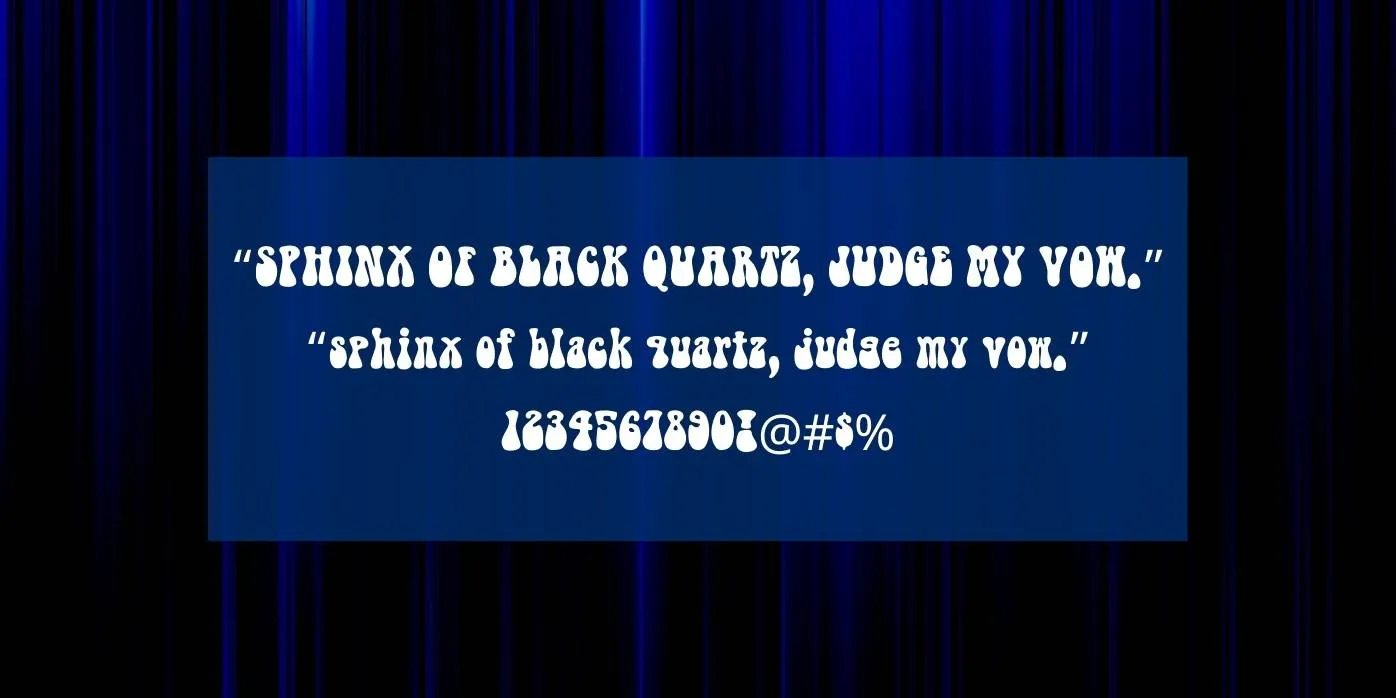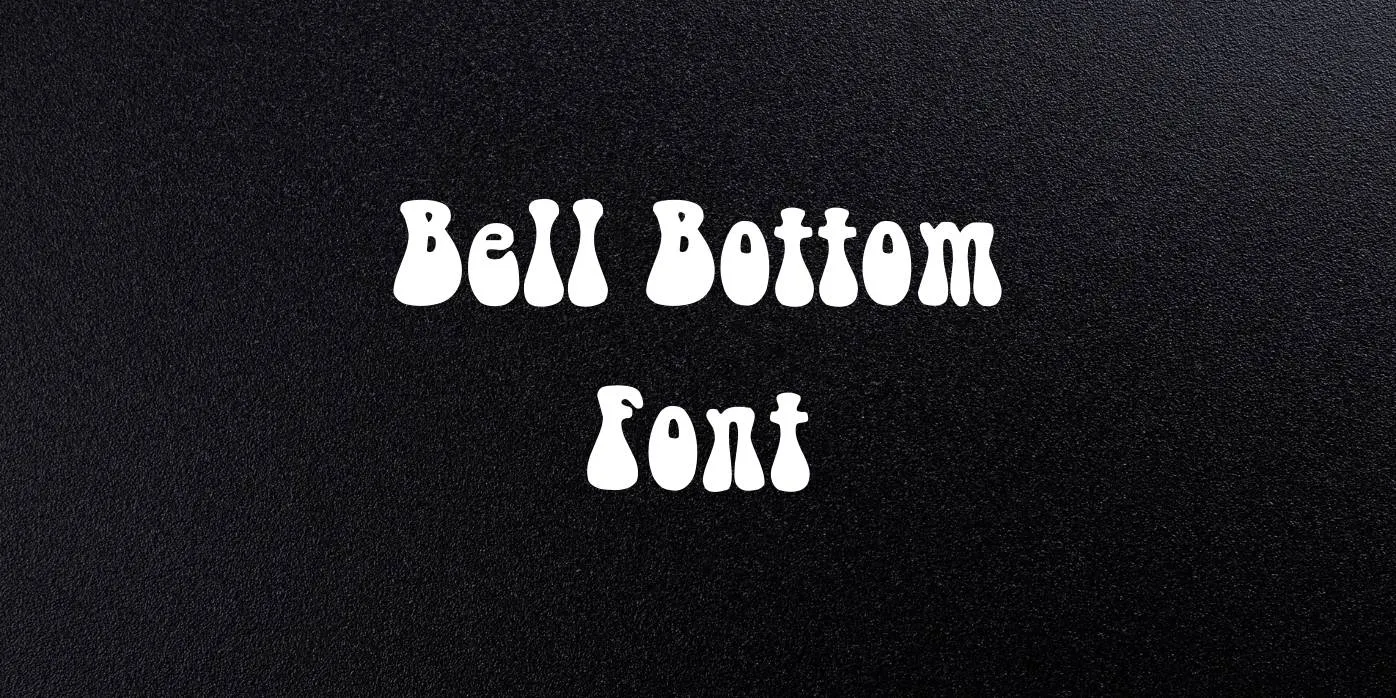
Bell Bottom Font
In this post, we introduce a stunning typeface known as Bell Bottom Font. This typeface belongs to the fancy font family. Loved is the designer of this family. The designer released it on 12th September 2015.
It is perfect and suitable for CSS and HTML. It is a unique font because of its design and characters. The characters are designed to look like they’re coming out of a bell bottom. The font is perfect for making headlines, titles, and logos.
It includes both upper and lowercase letters, numbers, and symbols. You can also utilize the facility of an online generator tool for your graphic design projects.